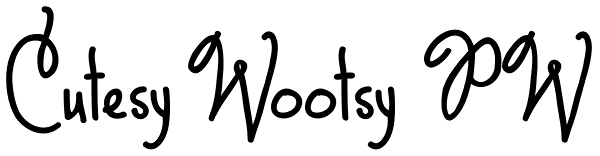
Cutesy Wootsy PW
A cutesy wootsy, love note-writing, school girl font. Cutesy Wootsy PW is available in OpenType, PostScript and TrueType format. The OpenType format includes a handful of ligatures and alternates.